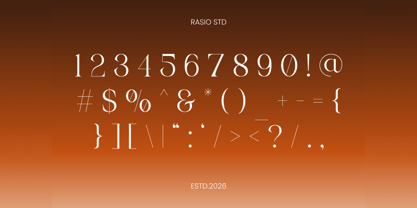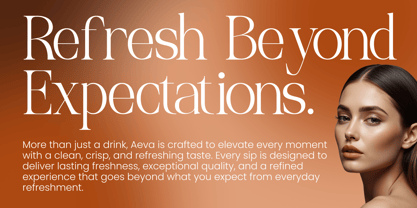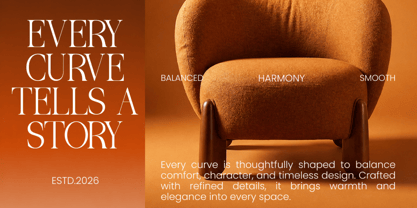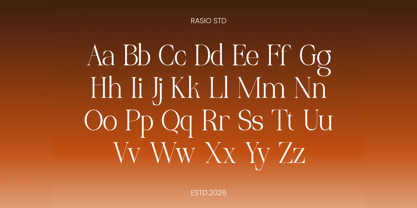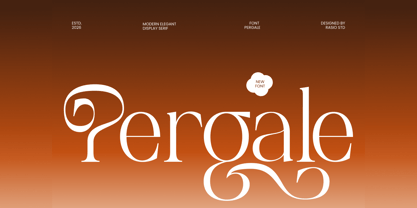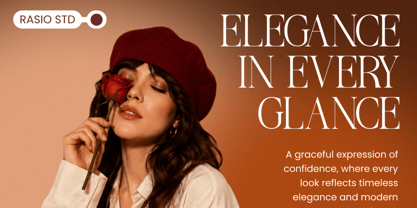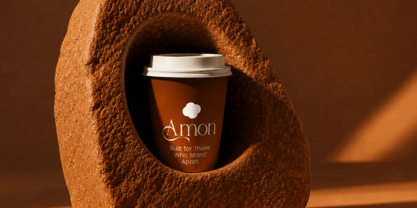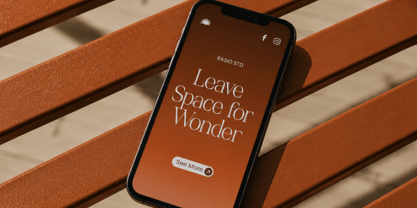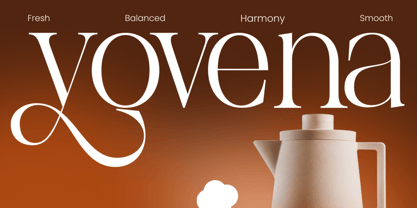
Pergale
La familia tipográfica Pergale fue diseñada por Fajar Indra y publicada por Rasio Studio. Pergale contiene 1 estilos. Más información sobre esta familia
Pergale is a modern display serif crafted to bring refinement and personality to large-format typography. Built with slender stems, graceful curves, and high-contrast strokes, the typeface delivers a sophisticated presence while maintaining clean readability. Delicate terminals and sweeping ornamental swashes create elegant movement throughout each word, giving titles and logos a distinctive character without sacrificing balance or clarity.
Relevance and Use Case is perfect for premium design projects that require elegant and sophisticated typography. It is suitable for luxury branding, fashion labels, beauty and cosmetic packaging, magazines, editorials, wedding stationery, invitations, jewelry branding, boutique logos, social media campaigns, premium product packaging, book covers, lifestyle branding, and upscale marketing materials where refined serif typography enhances visual appeal.